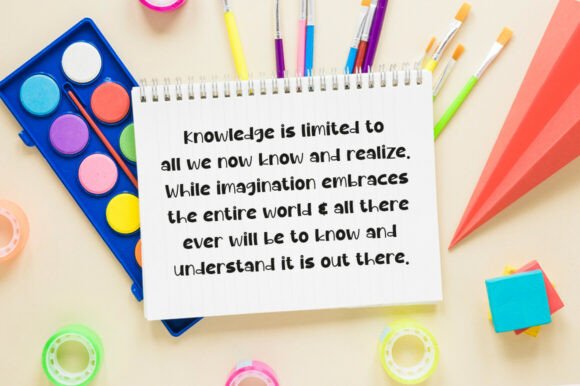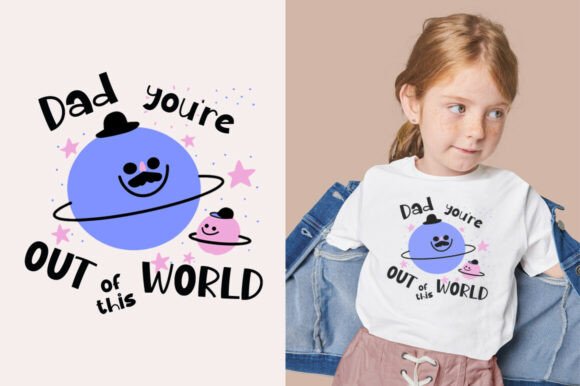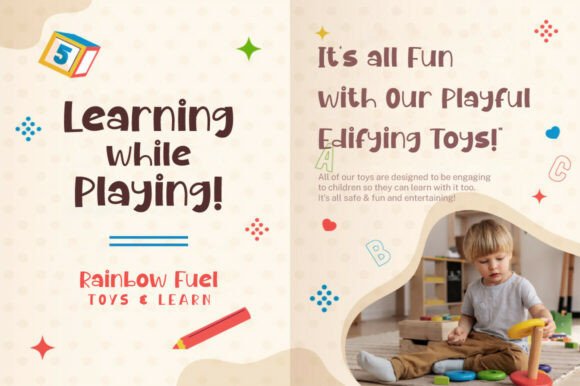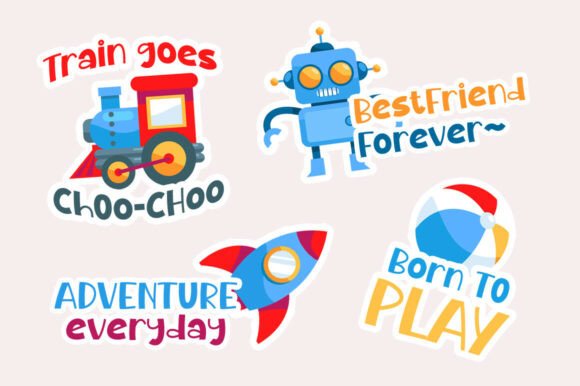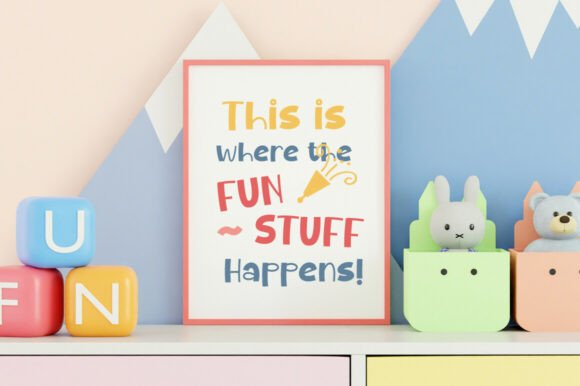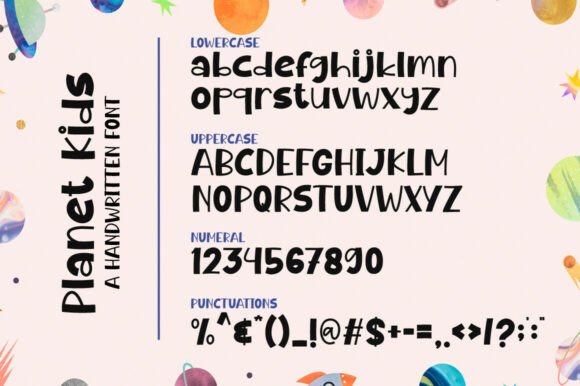
Introduction to Planet Kids Font
Planet Kids is a lovely and timeless handwritten font.
It is the best choice for creating eye-catching logos, branding, and quotes .
Key Features of Planet Kids Font
Why Choose Planet Kids Font?